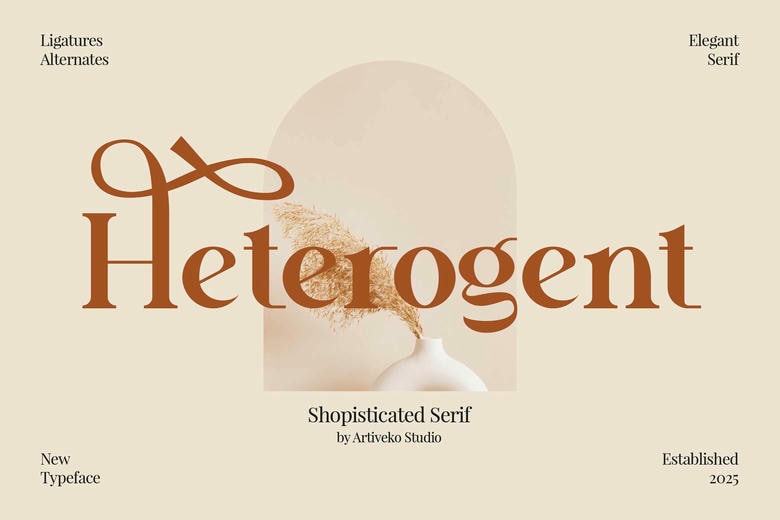
Heterogent Font
Heterogent is the polished serif font created with the purpose to realize classical beauty and aristocratic style. Heterogent works best in the luxury branding field, fashion houses, editorial layout, perfume packaging, wedding invitations, and statements logo design with its high-contrast strokes, sharp serifs and elegant proportions.
Heterogent Serif Font